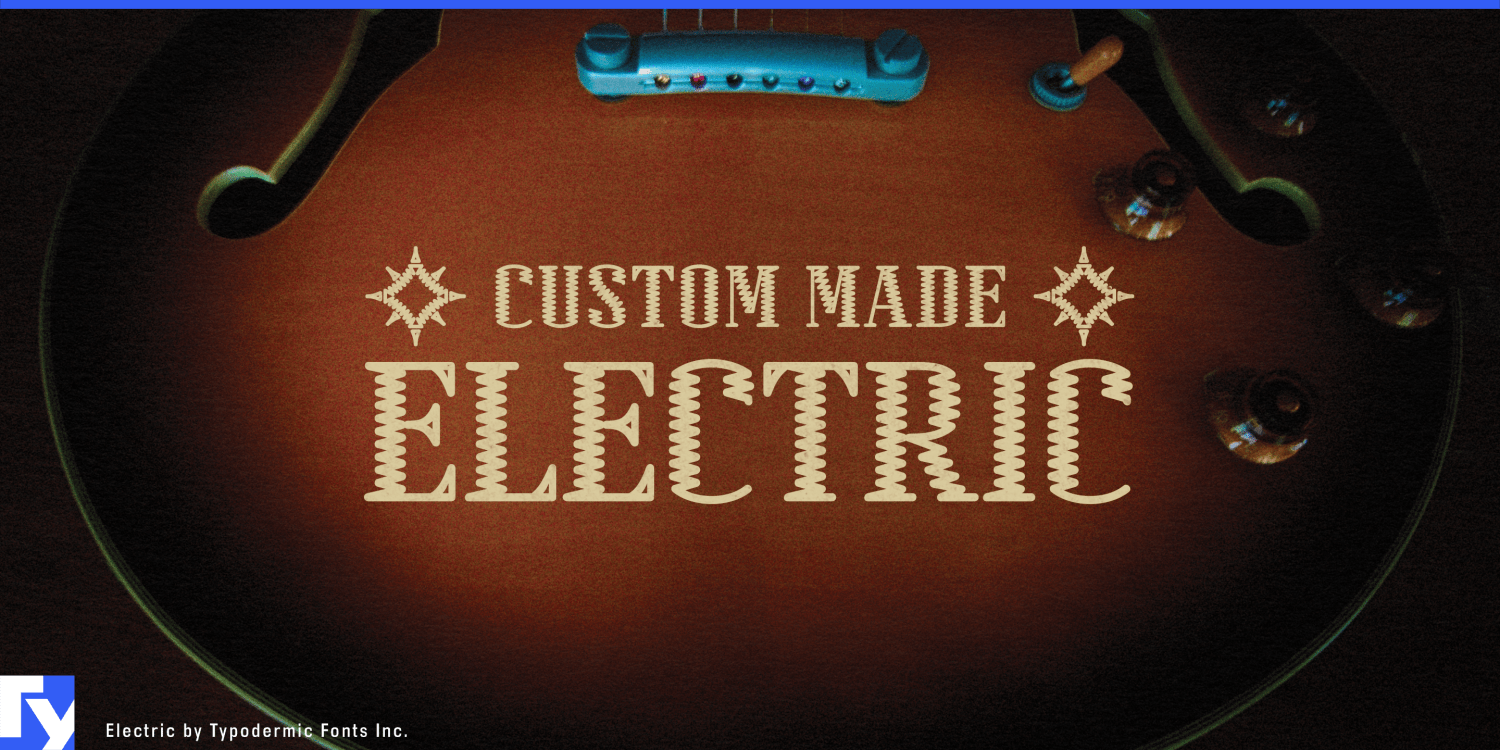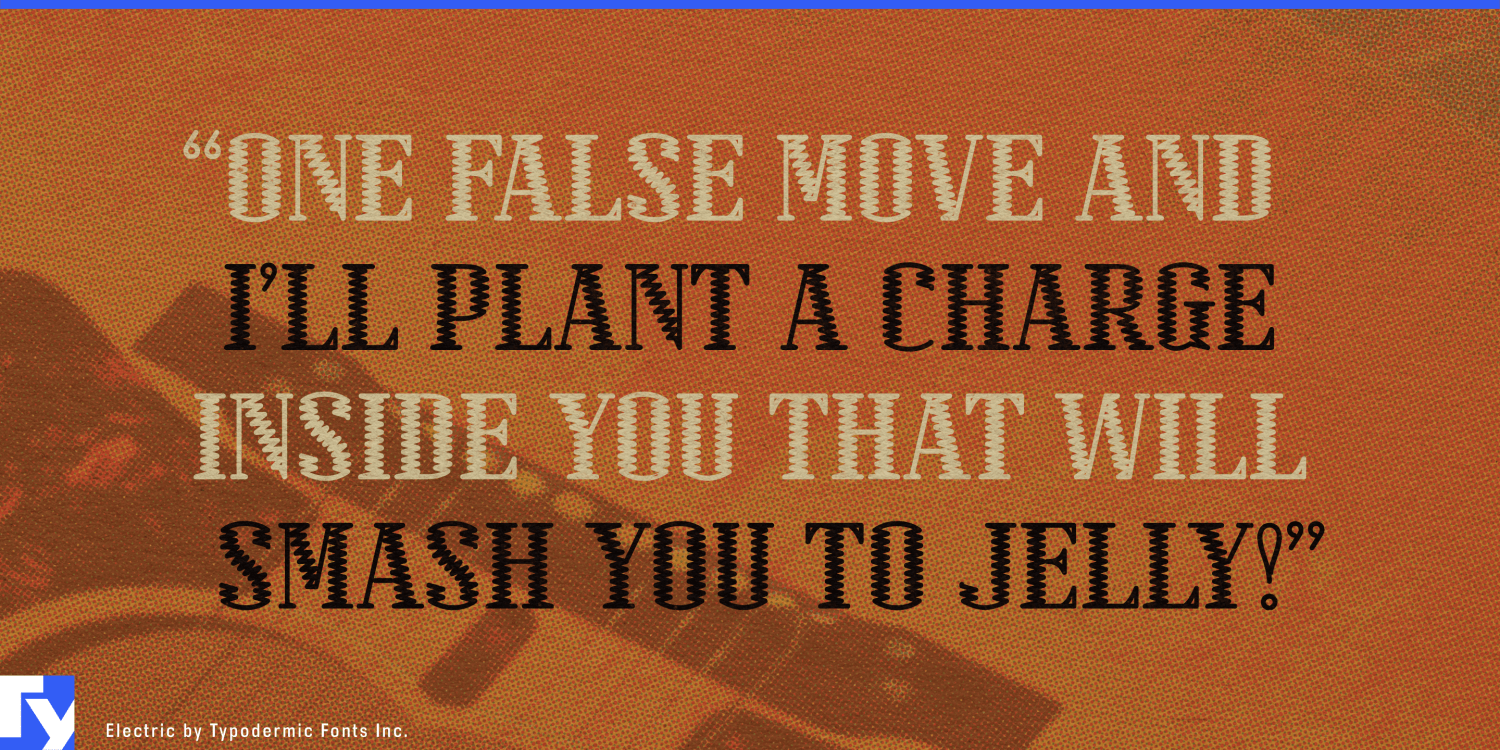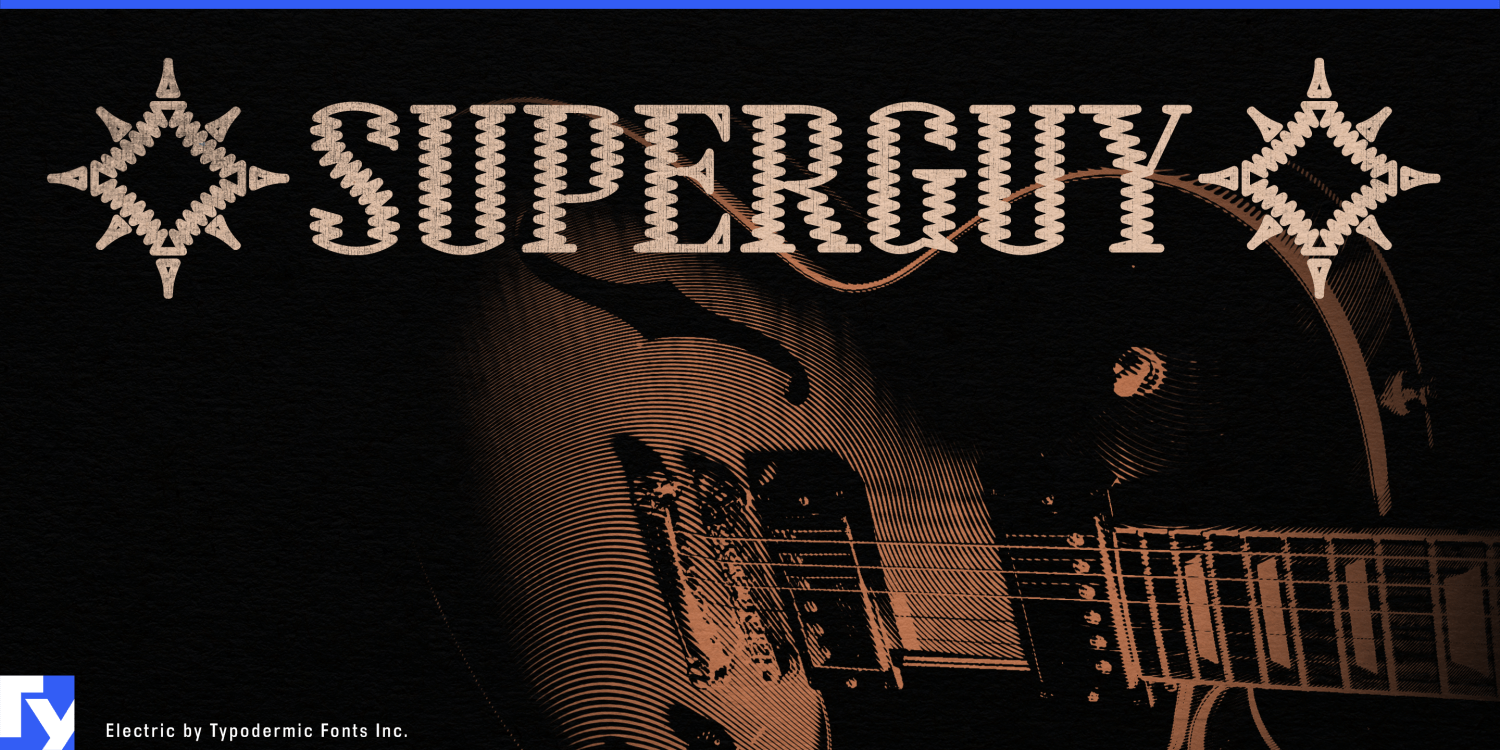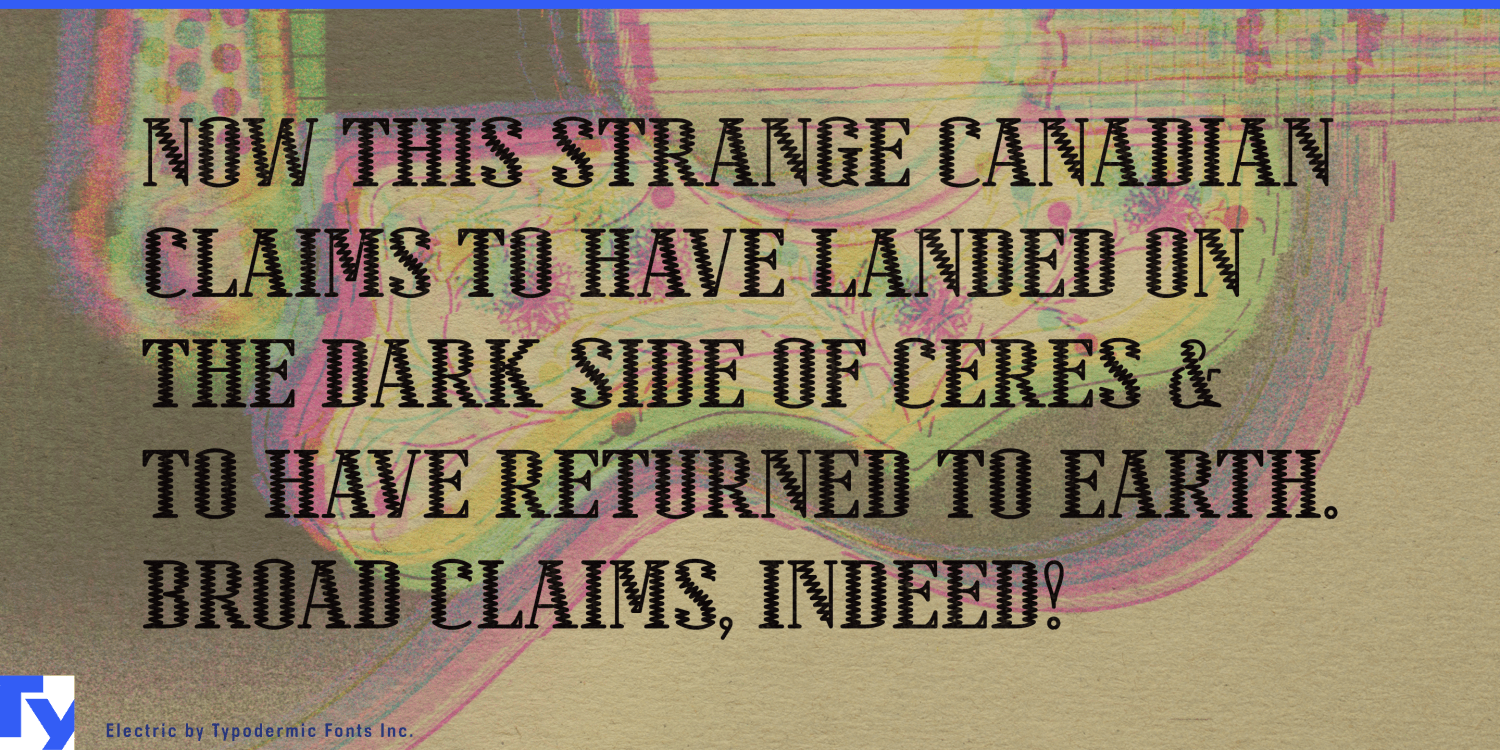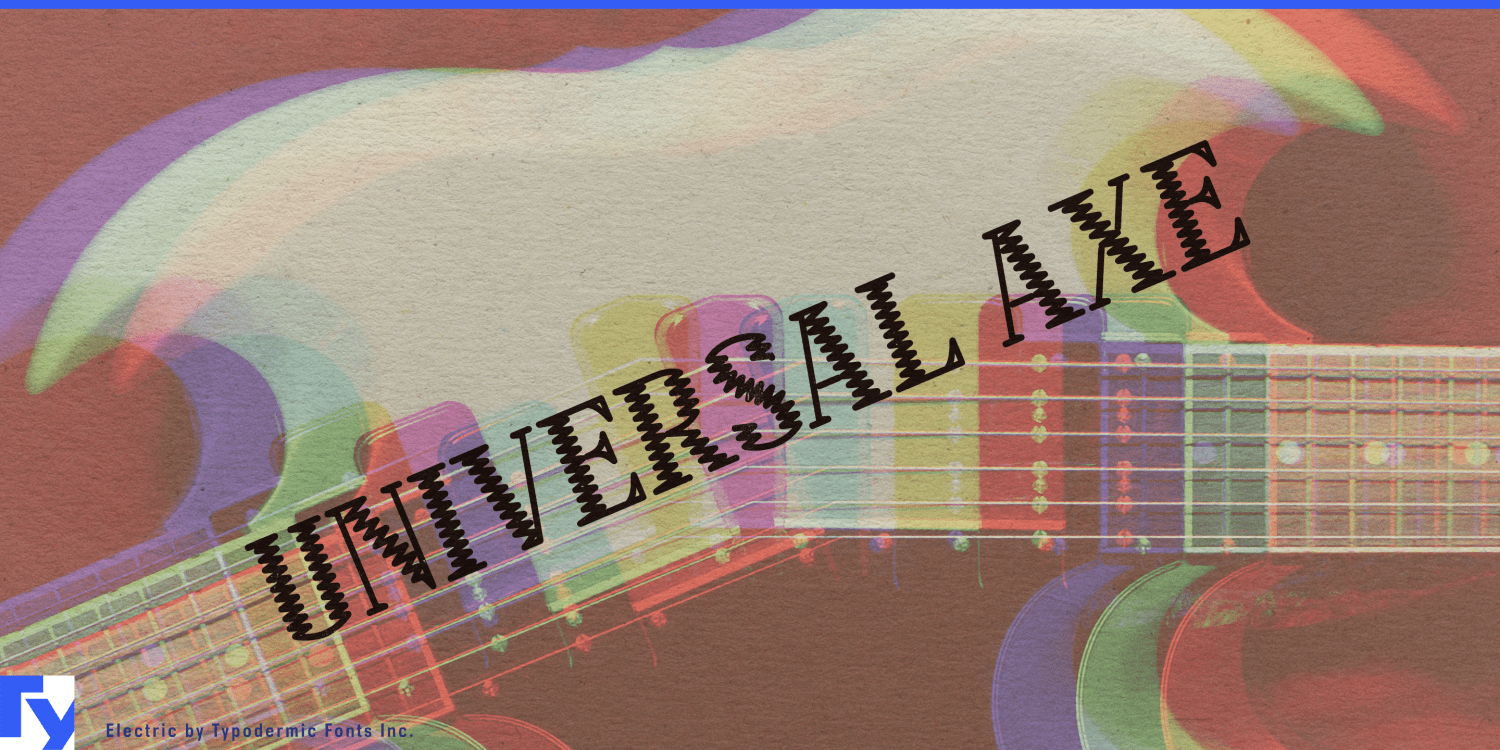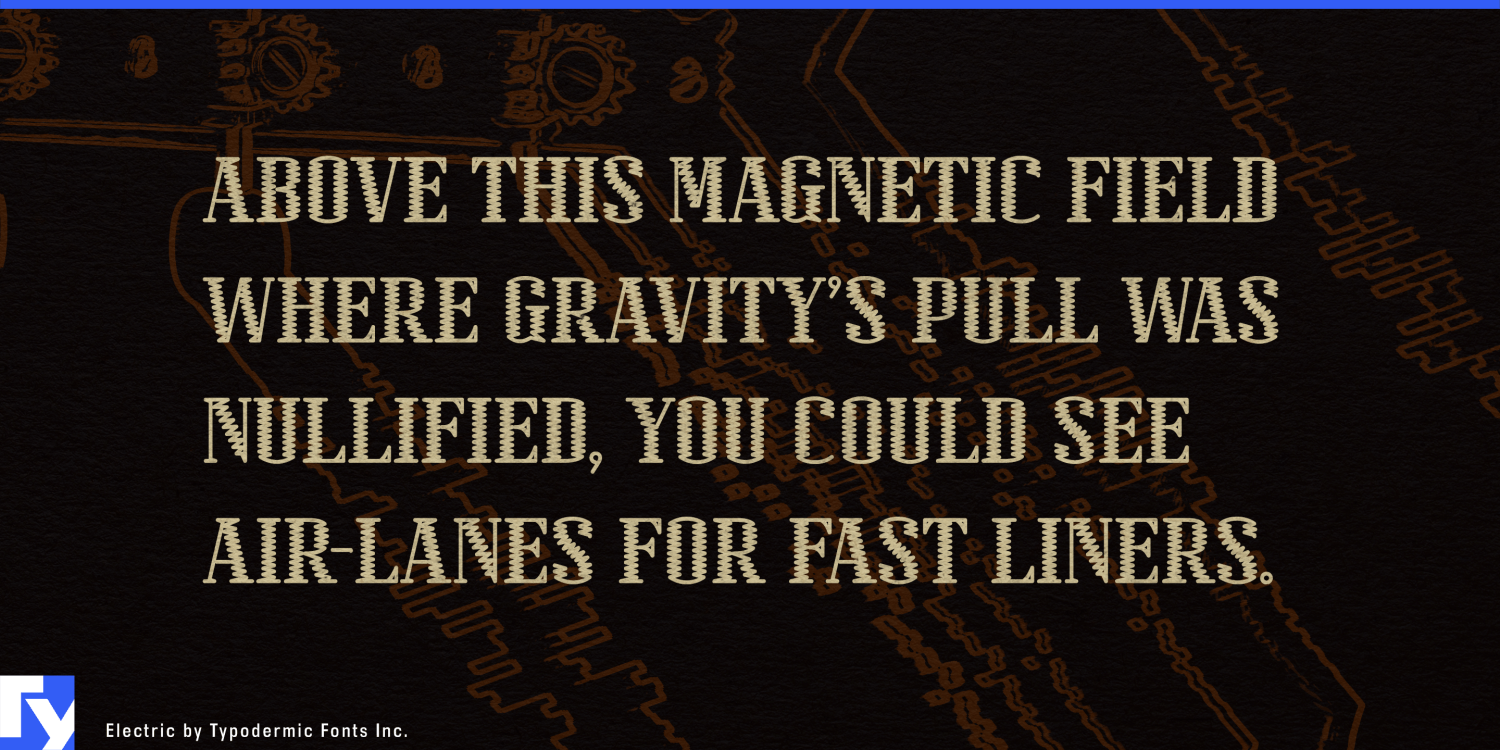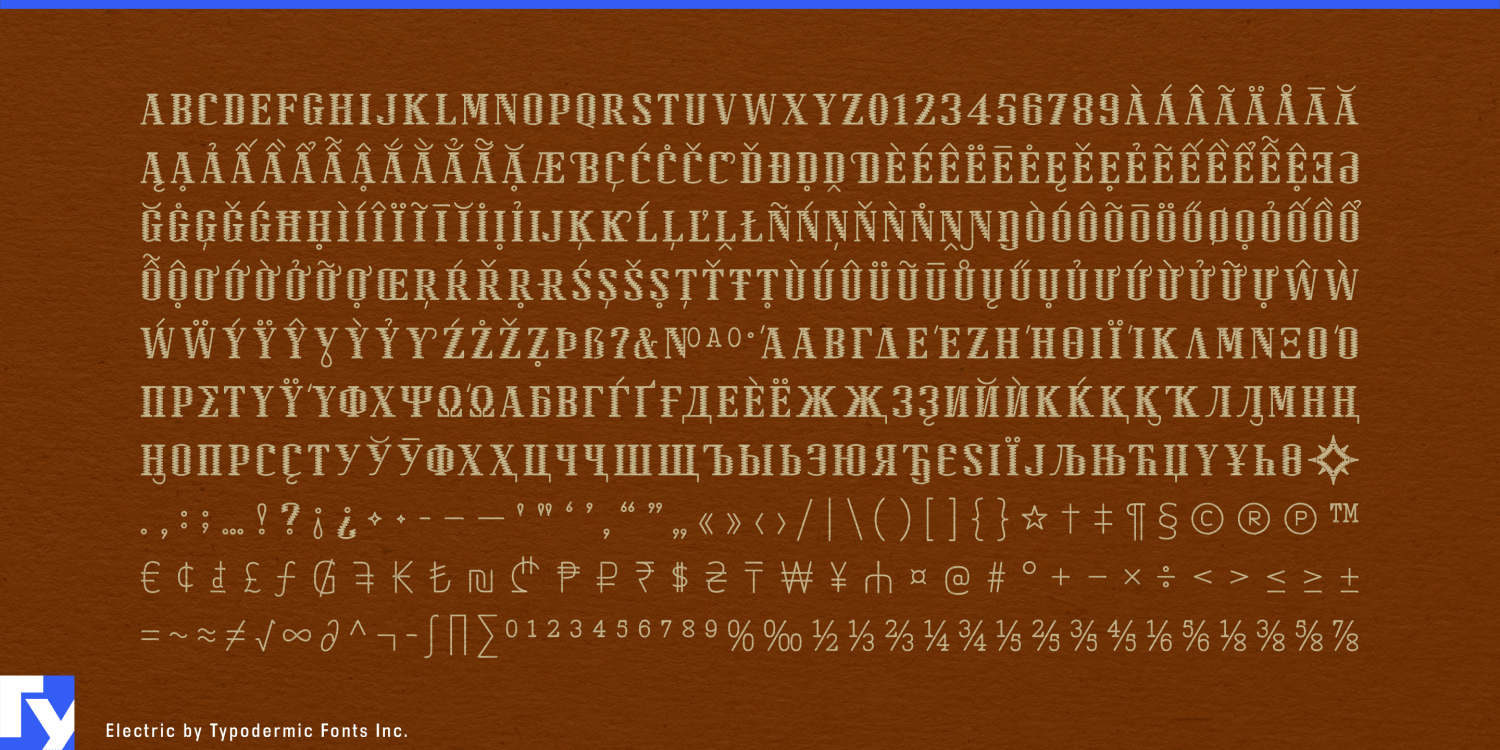
Electric
Font Family by Typodermic
Electric is for product names that should look fabricated rather than merely typeset. Its condensed serif forms contain a distinctive zigzag structure derived from the tool path of pantograph engraving, giving each letter the appearance of something routed, cut, wired, or worked into a metal plate. The decoration comes from an implied manufacturing process rather than an added inline.
That makes Electric especially useful for boutique musical hardware. Custom guitar and bass builders, handwired amplifiers, effects pedals, pickup manufacturers, modular synthesizers, and limited-run studio equipment can use it for headstock badges, amplifier plates, pedal names, equipment faceplates, flight cases, dealer displays, and limited-edition model graphics.
Electric restomods and custom e-mobility provide another strong setting. Classic cars converted to electric power, premium electric motorcycles, custom e-bikes, and specialist drivetrain systems combine traditional fabrication with contemporary electrical engineering. Electric can bridge those worlds on conversion-kit badges, battery covers, motor-controller housings, vehicle plaques, frame graphics, workshop displays, and model names.
Custom fabrication broadens the same idea. Machine shops, specialty metalworkers, motorcycle component makers, equipment builders, and small manufacturers can use Electric for builder plates, engraved panels, model designations, workshop hardware, CNC-made components, and trade-show graphics. Its internal linework gives short names the visual weight of something machined into the object rather than applied afterward.
The zigzag construction can also suggest resistance wire, heating elements, and glowing filaments. Radiant heaters, electric grills, specialty cooking appliances, infrared heating systems, heated outdoor products, and industrial thermal equipment can use Electric for product badges, control-panel graphics, packaging, and launch material. Architectural filament fixtures, restoration lighting, custom lamps, and decorative electric hardware extend the same idea into lighting.
Electric gives product names a built-in sense of toolwork, making it especially effective when the lettering should feel like part of the object rather than a graphic placed on top of it.